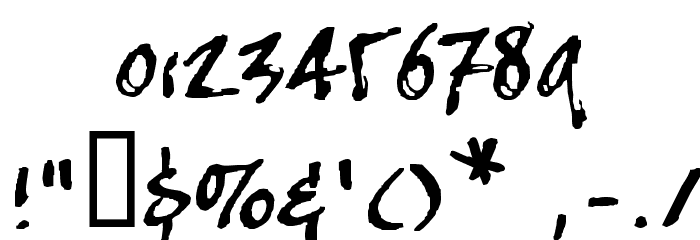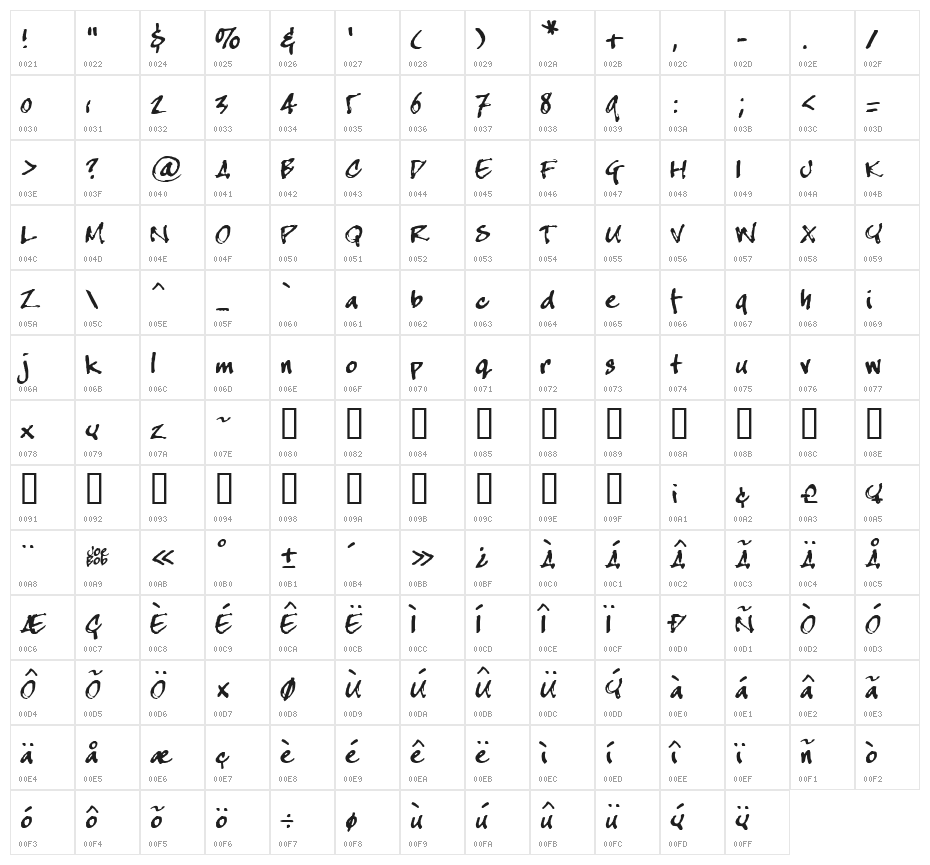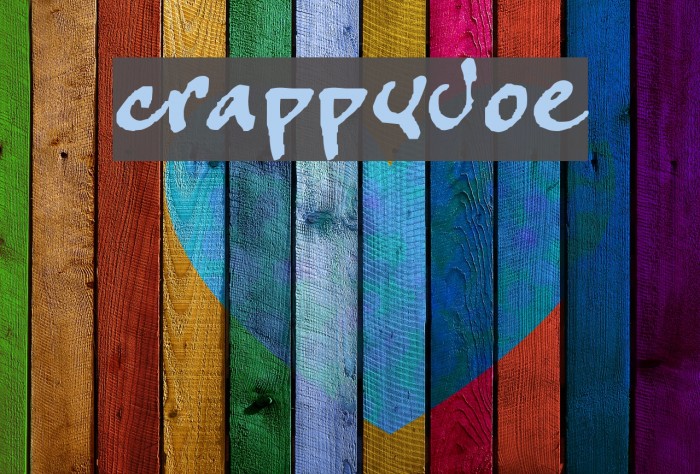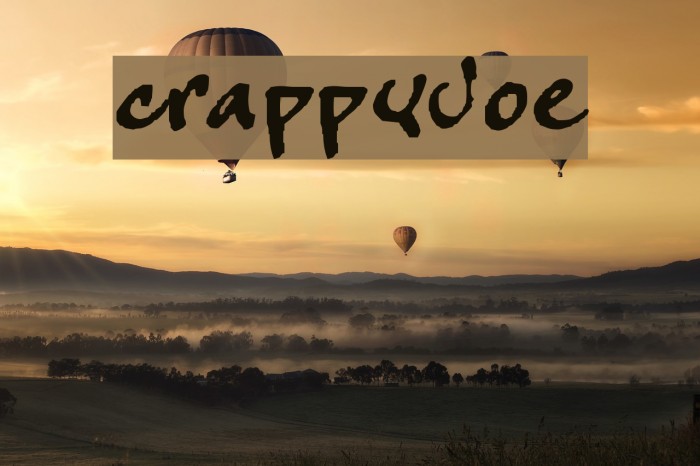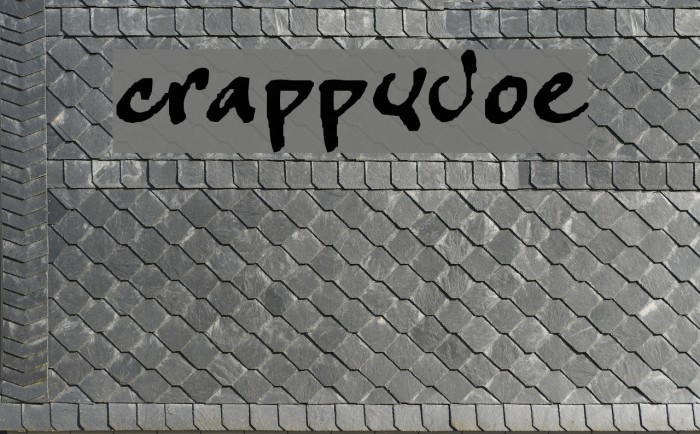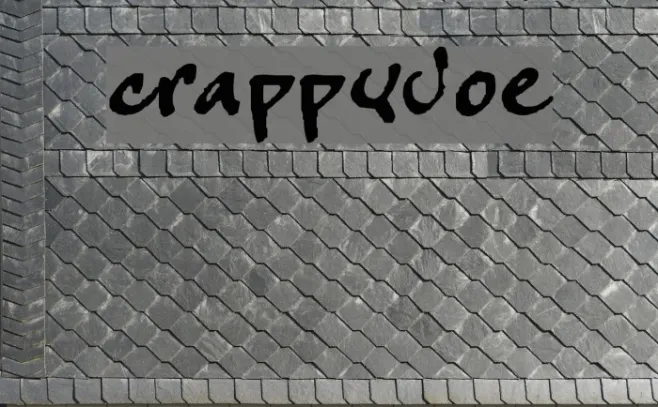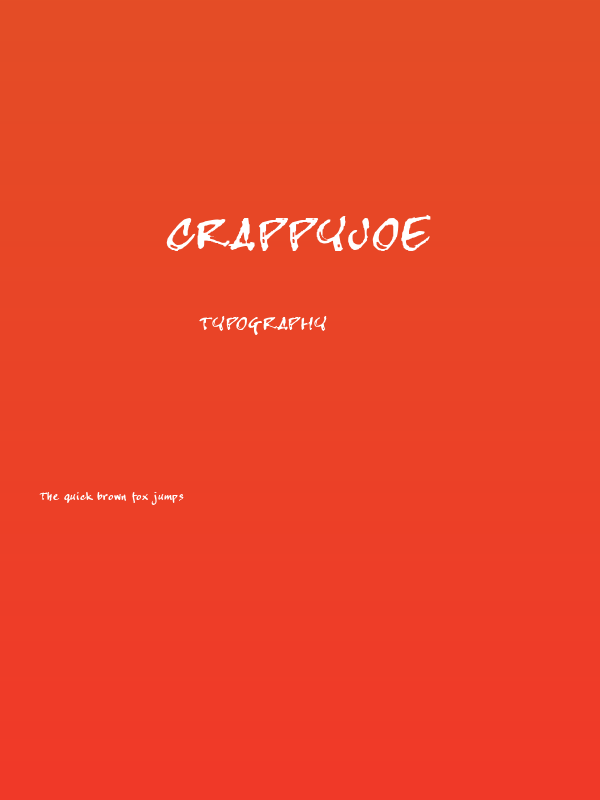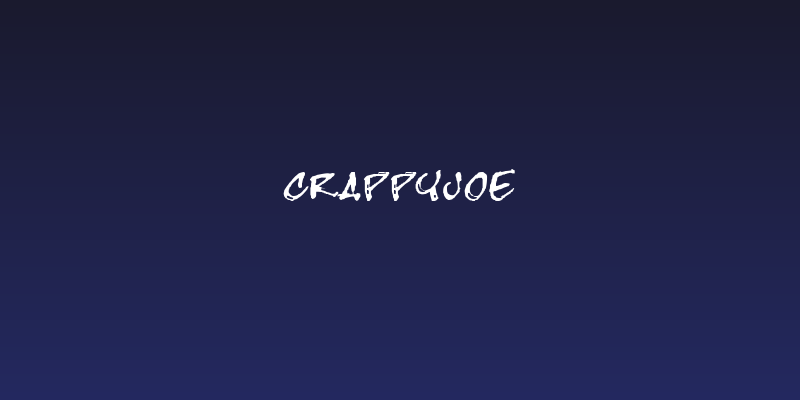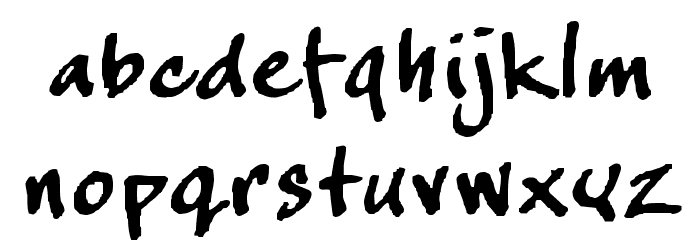
crappyJoe Font
crappyJoe Description
This font exhibits a bold and expressive handwritten style, characterized by its dynamic and irregular strokes. The letters have a natural, brush-like appearance, giving them an energetic and spontaneous feel. The uppercase and lowercase letters are crafted with a sense of movement, while the numbers and special characters maintain the same lively aesthetic. The overall design is informal and artistic, making it suitable for projects that require a personal touch or a creative flair.
| Use Case | Logos, Posters, Creative projects |
| Proposed Projects | Ideal for greeting cards, artistic posters, branding for creative businesses, and personal projects that require a unique, handcrafted look. |